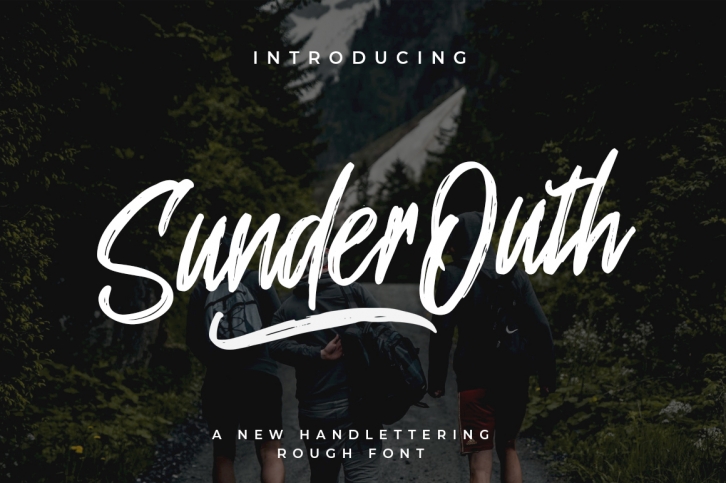
Sunder Outh is a beautiful font that was designed by Indotitas. It's a great choice for designers and creatives who need such a font. It was released on February 13, 2019 and the file size is 18.58 MB. Sunder Outh may give a more youthful, expressive and casual look to your project. It is a very beautiful, refined, elegant, and high-quality font.